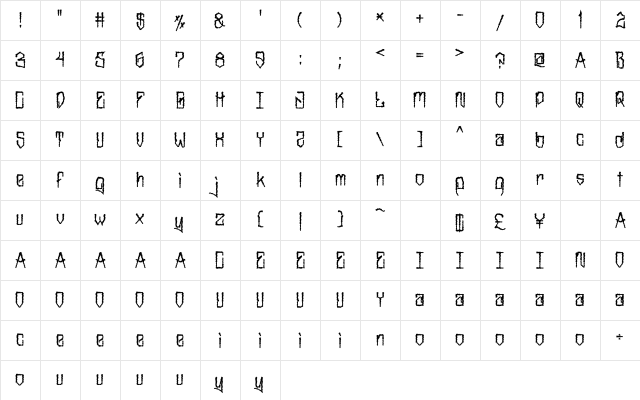
Complete MarkerNo3HUN Rough III Black glyph index. Displaying only characters natively supported by MarkerNo3HUN Rough III Black font.
MarkerNo3HUN embraces imperfection - its rough, textured character adds raw authenticity to designs that want to feel lived-in and unconventional.
Pro Tip: Use MarkerNo3HUN at larger sizes where the texture and irregularity of each letterform can be clearly seen - it loses its character at small sizes.